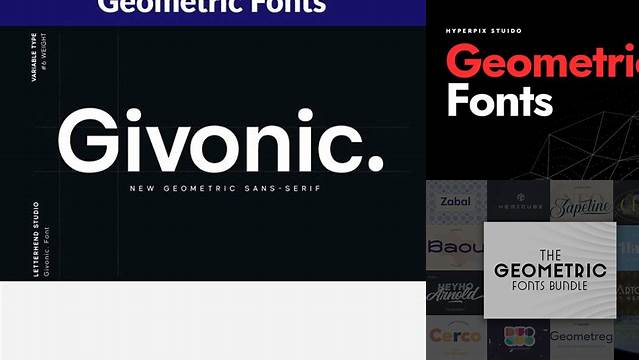
Geometric Fonts: Examples & Best Uses
Hey guys! Let's dive into the fascinating world of geometric fonts. These fonts, characterized by their clean lines and simple shapes, have become a staple in modern design. From logos to websites, geometric fonts offer a sleek and contemporary feel. This article will explore various examples and best uses of geometric fonts, helping you understand how to effectively incorporate them into your projects.
What are Geometric Fonts?
Before we jump into examples, let's define what geometric fonts actually are. Geometric fonts are typefaces that are built upon basic geometric shapes like circles, squares, and triangles. This construction gives them a very structured and clean appearance. Think of iconic fonts like Futura, Avant Garde, and Avenir – these are all prime examples of geometric sans-serif fonts. The simplicity and clarity of geometric fonts make them incredibly versatile, suitable for a wide range of applications. Their minimalist design also ensures readability, which is crucial for both print and digital media. Often, geometric fonts evoke a sense of modernity and sophistication, making them a popular choice for brands aiming to project a contemporary image. So, in essence, geometric fonts are the epitome of modern typography, blending form and function seamlessly to create visually appealing and highly legible text.
The History of Geometric Fonts
The history of geometric fonts is pretty interesting! The roots can be traced back to the Bauhaus movement in the early 20th century. This influential art and design movement emphasized simplicity, functionality, and the use of geometric forms. Designers like Herbert Bayer and Paul Renner were pioneers in this field, creating typefaces that reflected the Bauhaus philosophy. Renner's Futura, released in 1927, is perhaps the most iconic example, and it set the standard for many geometric fonts that followed. The clean, crisp lines and mathematically precise shapes of Futura represented a radical departure from the more ornate typefaces of the time. The Bauhaus ideals of form following function and the reduction of design to its essential elements heavily influenced the development of geometric fonts. These fonts were seen as a visual expression of the modern age, reflecting the industrialization and technological advancements of the era. Over the decades, geometric fonts have remained popular, continually being adapted and reinterpreted by designers to suit contemporary needs. Their timeless appeal lies in their ability to convey a sense of order, clarity, and modernity, making them a staple in graphic design history.
Why Choose Geometric Fonts?
There are tons of reasons to choose geometric fonts for your projects. First off, they offer a clean and modern aesthetic that can instantly elevate your design. The simplicity of geometric shapes creates a sense of sophistication and clarity, which is perfect for brands looking to project a contemporary image. Readability is another major advantage. Geometric fonts, with their clear and consistent letterforms, are easy to read in both large and small sizes, making them suitable for a wide range of applications, from headlines to body text. Versatility is also a key benefit. Geometric fonts work well in various contexts, whether you're designing a logo, a website, a brochure, or even an app. They pair well with other font styles, allowing you to create visually interesting and balanced designs. Furthermore, the minimalist nature of geometric fonts means they don't distract from the content. They serve their purpose without overwhelming the overall design, ensuring that the message remains the focal point. In short, geometric fonts are a fantastic choice for anyone seeking a typeface that is both visually appealing and highly functional.
Best Uses for Geometric Fonts
So, where do geometric fonts really shine? Well, they're super versatile, but here are some specific areas where they excel. For logos, geometric fonts provide a clean and professional look, perfect for brands that want to convey a sense of modernity and trustworthiness. Think about brands in tech, finance, or design – you'll often see geometric typefaces in their logos. Websites also benefit greatly from geometric fonts. Their excellent readability makes them ideal for both headings and body text, ensuring a smooth and pleasant user experience. Plus, the modern aesthetic aligns perfectly with contemporary web design trends. In print materials, such as brochures and posters, geometric fonts stand out due to their clarity and visual appeal. They can create a strong visual hierarchy and make your content more engaging. Digital interfaces, like apps and software, also benefit from the clean lines of geometric fonts, ensuring that text is legible and user-friendly. Even in editorial design, geometric fonts can be used effectively to create a sense of order and sophistication. Overall, the best uses for geometric fonts are in any context where clarity, modernity, and a touch of elegance are desired. They're a reliable choice for a wide range of design projects, making them a staple in any designer's toolkit.
Geometric Fonts for Logos
When it comes to logos, geometric fonts are a go-to choice for many designers. Their clean and modern appearance helps to create a brand identity that feels contemporary and professional. The simplicity of geometric fonts ensures that the logo remains legible and impactful, even at small sizes. This is crucial for logos that need to work across various platforms, from business cards to websites. Brands in industries such as technology, finance, and design often favor geometric typefaces because they convey a sense of innovation and trustworthiness. A well-chosen geometric font can communicate a brand's values and personality effectively. For example, a logo using a bold geometric font might project confidence and stability, while a lighter, more refined geometric font might suggest elegance and sophistication. It's important to consider the overall brand message when selecting a geometric font for a logo. The font should complement the brand's identity and resonate with its target audience. In addition to their aesthetic appeal, geometric fonts are also highly versatile, pairing well with various design elements and color palettes. This makes them a reliable choice for creating logos that are both visually appealing and functionally effective.
Geometric Fonts for Websites
Websites are another area where geometric fonts truly shine. Their excellent readability and modern aesthetic make them a fantastic choice for creating a user-friendly and visually appealing online experience. Whether you're designing a blog, an e-commerce site, or a corporate website, geometric fonts can help to enhance the overall look and feel. One of the key benefits of using geometric fonts on websites is their clarity. The clean lines and simple shapes make text easy to read, which is crucial for keeping visitors engaged. This is particularly important for body text, where readability is paramount. However, geometric fonts also work well for headings and subheadings, creating a strong visual hierarchy and guiding users through the content. In addition to their readability, geometric fonts also contribute to a contemporary design aesthetic. They align perfectly with modern web design trends, helping to create a website that feels fresh and up-to-date. The versatility of geometric fonts also means they can be used in various contexts, from minimalist designs to more complex layouts. They pair well with other font styles, allowing you to create visually interesting and balanced typography. Overall, geometric fonts are a solid choice for websites, offering a combination of readability, style, and versatility that can significantly enhance the user experience.
Geometric Fonts for Print Materials
Geometric fonts are not just for digital use; they also excel in print materials. Their clean and crisp appearance makes them an excellent choice for brochures, posters, business cards, and other printed documents. The clarity of geometric fonts ensures that your message is communicated effectively, even in smaller print sizes. This is particularly important for materials where readability is crucial, such as product brochures or informational flyers. The modern aesthetic of geometric fonts can also add a touch of sophistication to your print designs. Whether you're creating a marketing brochure for a high-end product or designing a professional business card, geometric fonts can help to convey a sense of quality and attention to detail. Their versatility also allows them to be used in various print applications, from minimalist designs to more complex layouts. They work well for headings, body text, and even captions, providing a consistent and cohesive typographic style throughout your printed materials. Furthermore, geometric fonts can be easily paired with other font styles to create visually interesting and balanced designs. This makes them a reliable choice for any print project where a clean, modern, and professional look is desired.
Geometric Fonts for Digital Interfaces
When it comes to digital interfaces, such as apps and software, geometric fonts are a practical and stylish choice. Their clean lines and excellent readability make them ideal for ensuring a user-friendly experience. In the world of UI/UX design, clarity is key, and geometric fonts deliver just that. The consistent letterforms and simple shapes make text easy to read, which is crucial for guiding users through an interface. Whether it's labels, buttons, or body text, geometric fonts ensure that information is presented in a clear and accessible manner. The modern aesthetic of geometric fonts also aligns well with contemporary interface design trends. They contribute to a sleek and polished look, enhancing the overall visual appeal of the app or software. This is particularly important for creating a positive first impression and keeping users engaged. Additionally, the versatility of geometric fonts means they can be used in various contexts within the interface, from navigation menus to error messages. They work well in different sizes and weights, providing flexibility for designing a cohesive and visually consistent user experience. Overall, geometric fonts are a solid choice for digital interfaces, offering a combination of readability, style, and versatility that can significantly enhance usability.
Pairing Geometric Fonts with Other Styles
One of the best things about geometric fonts is their ability to pair well with other font styles. This versatility allows designers to create visually interesting and balanced typography in their projects. The clean and simple nature of geometric fonts means they can complement a wide range of typefaces, from serifs to scripts. When pairing geometric fonts with serif fonts, you can create a classic and sophisticated look. Using a geometric sans-serif for headings and a serif font for body text can establish a clear visual hierarchy while maintaining readability. The contrast between the clean lines of the geometric font and the more ornate details of the serif font can add depth and visual interest to the design. For a more modern and minimalist aesthetic, consider pairing geometric fonts with other sans-serif typefaces. This can create a cohesive and clean look, perfect for contemporary designs. Experiment with different weights and styles to achieve the desired balance and visual impact. Geometric fonts can also be paired with script fonts for a more playful and dynamic design. However, it's important to use this combination sparingly, as too much script can become overwhelming. A script font can be used for headings or accents, while the geometric font provides a clean and legible foundation for the rest of the text. Ultimately, the key to pairing geometric fonts with other styles is to experiment and find combinations that work well together visually and conceptually.
Examples of Popular Geometric Fonts
Let's talk about some popular geometric fonts that you might have seen around! One of the most iconic is Futura, designed by Paul Renner in 1927. Futura is a classic example of a geometric sans-serif, known for its clean lines and perfect circles. It's been used in countless logos, posters, and publications, and it's still super popular today. Another well-known geometric font is Avant Garde, designed by Herb Lubalin and Tom Carnase in 1970. Avant Garde has a distinctive, modernist look, with its sharp angles and simplified letterforms. It's often used for logos and headlines, and it's great for creating a bold and stylish statement. Avenir, designed by Adrian Frutiger in 1988, is another excellent example. Avenir is a more humanist geometric font, with a slightly warmer and more approachable feel than Futura or Avant Garde. It's highly readable and versatile, making it a great choice for both body text and headings. Geometric fonts like Gotham, designed by Tobias Frere-Jones in 2000, have also gained significant popularity. Gotham has a strong, industrial feel, and it was famously used in the Obama presidential campaign. These are just a few examples, but they demonstrate the wide range of styles and applications within the geometric font category. Each font has its unique personality and strengths, so it's worth exploring different options to find the perfect fit for your project.
Futura: A Classic Geometric Font
Futura is the classic geometric font, guys! Designed by Paul Renner in 1927, it's a true icon of modern typography. What makes Futura so special? Well, it's all about the clean lines and pure geometric shapes. Renner based the design on basic forms like circles, squares, and triangles, creating a typeface that feels incredibly structured and precise. This simplicity is what gives Futura its timeless appeal. It's a font that looks just as good today as it did almost a century ago. The impact of Futura on the world of design cannot be overstated. It set a new standard for sans-serif typefaces, and it influenced countless designers and typographers. Its clean and modern aesthetic made it a perfect fit for the modernist movement, and it quickly became a favorite for everything from corporate logos to editorial design. You've probably seen Futura everywhere, even if you didn't realize it. It's been used by major brands like Volkswagen, IKEA, and Domino's Pizza, and it's a popular choice for movie posters and book covers. The versatility of Futura is another reason for its enduring popularity. It works well in a wide range of contexts, from headlines to body text, and it can convey a sense of sophistication, modernity, and efficiency. If you're looking for a reliable and timeless geometric font, Futura is definitely one to consider. It's a true classic that will never go out of style.
Avant Garde: A Modern Geometric Font
Avant Garde is another standout geometric font, known for its bold and modernist style. Designed by Herb Lubalin and Tom Carnase in 1970, Avant Garde has a distinct personality that sets it apart from other geometric typefaces. Its sharp angles, simplified letterforms, and unique ligatures give it a very contemporary and stylish feel. The design of Avant Garde was heavily influenced by the avant-garde art movement, which emphasized experimentation and innovation. This influence is evident in the font's unconventional shapes and its willingness to break from traditional typographic conventions. Avant Garde is often used for logos and headlines, where its strong visual presence can make a bold statement. It's particularly well-suited for brands that want to project a cutting-edge or artistic image. The font's unique ligatures, which combine two or more letters into a single glyph, add to its distinctive character. These ligatures create a sense of fluidity and visual interest, making Avant Garde a truly memorable typeface. However, it's important to use Avant Garde judiciously, as its strong personality can sometimes be overwhelming. It works best in short bursts, such as headlines or logos, where its impact can be maximized. When used effectively, Avant Garde can bring a touch of sophistication and modernity to any design project. It's a geometric font that truly embodies the spirit of its time.
Avenir: A Humanist Geometric Font
Avenir is a geometric font that takes a slightly different approach. Designed by Adrian Frutiger in 1988, Avenir is often described as a humanist geometric sans-serif. This means that while it retains the clean lines and geometric shapes of a classic geometric font, it also incorporates subtle humanistic elements that give it a warmer and more approachable feel. Frutiger's goal with Avenir was to create a typeface that was both modern and timeless. He wanted to capture the essence of geometric simplicity while also making the font highly readable and versatile. The result is a typeface that is both elegant and functional, making it a popular choice for a wide range of applications. One of the key characteristics of Avenir is its balanced proportions and subtle curves. These details give the font a more organic and human feel compared to the strict geometry of typefaces like Futura. Avenir is also highly legible, making it a great choice for body text. Its clean and clear letterforms ensure that text remains readable even at small sizes. The versatility of Avenir makes it a popular choice for both print and digital design. It works well for logos, headlines, and body text, and it can convey a sense of sophistication and modernity. If you're looking for a geometric font that is both stylish and approachable, Avenir is definitely worth considering. It's a typeface that balances form and function beautifully.
Gotham: A Strong Geometric Font
Gotham is a geometric font known for its strong and industrial feel. Designed by Tobias Frere-Jones in 2000, Gotham has a distinctly modern and American character. Its clean, sans-serif design is inspired by the architectural signage of New York City, giving it a sense of urban sophistication and strength. One of the most notable uses of Gotham was in the 2008 Obama presidential campaign. The font's bold and confident appearance helped to convey a message of hope and change, and it became an integral part of the campaign's visual identity. Gotham's success in the Obama campaign helped to solidify its reputation as a powerful and versatile typeface. It's often used for logos, headlines, and signage, where its strong presence can make a significant impact. The font's clean lines and simple shapes ensure that it remains legible even at small sizes, making it a practical choice for a wide range of applications. Geometric fonts like Gotham are a versatile choice, and their strong geometric construction makes them particularly well-suited for designs that need to convey a sense of authority and reliability. Whether you're designing a corporate website or a marketing campaign, Gotham can help you create a visually compelling and effective message. Its modern and confident style makes it a favorite among designers who are looking for a typeface that can command attention.
Geometric Font Styles: Bold, Light, and More
Geometric fonts come in various styles, from bold and impactful to light and elegant. Understanding the different styles available can help you choose the perfect typeface for your project. Bold geometric fonts are ideal for headlines and logos, where you want to make a strong statement. Their thick strokes and solid forms command attention and create a sense of authority. Using geometric fonts in a bold style is a good way to ensure that your message is clearly seen and understood. Light geometric fonts, on the other hand, offer a more subtle and refined look. They are often used for body text and captions, where readability is paramount. The thin strokes and open forms of light geometric fonts create a sense of airiness and elegance. In addition to bold and light styles, many geometric fonts also come in regular, medium, and semi-bold weights. These intermediate styles provide flexibility for creating a visual hierarchy in your designs. For example, you might use a semi-bold weight for subheadings and a regular weight for body text. Geometric fonts also often include italic styles, which can add a touch of dynamism and visual interest to your designs. Italic geometric fonts are particularly effective for emphasizing key words or phrases. Exploring the different styles and weights available within a geometric font family can help you create a cohesive and visually appealing typographic system. By carefully selecting the appropriate styles for different elements of your design, you can ensure that your message is communicated effectively and with style.
Geometric Fonts for Headlines
When it comes to headlines, geometric fonts are a fantastic choice. Their clean lines and modern aesthetic make them perfect for grabbing attention and creating a strong visual impact. Geometric fonts for headlines help to ensure that your message is not only seen but also felt. A well-chosen geometric typeface can instantly elevate your design, adding a touch of sophistication and clarity. One of the key benefits of using geometric fonts for headlines is their excellent readability. The simple and consistent letterforms make headlines easy to read, even at large sizes. This is crucial for ensuring that your message is communicated effectively. Bold geometric fonts are particularly well-suited for headlines, as their thick strokes and solid forms command attention. Typefaces like Futura and Gotham are popular choices for headlines, thanks to their strong and confident appearance. However, lighter geometric fonts can also be used effectively for headlines, especially in designs where a more subtle and refined look is desired. The key is to choose a font style that complements the overall design aesthetic. Geometric fonts also pair well with other font styles, giving you the flexibility to create visually interesting and balanced typography. For example, you might use a geometric font for your headlines and a serif font for your body text. This combination can create a classic and sophisticated look, while also ensuring readability. Overall, geometric fonts are a reliable and stylish choice for headlines, offering a combination of clarity, modernity, and visual impact.
Geometric Fonts for Body Text
While geometric fonts are often associated with headlines and logos, they can also be an excellent choice for body text. The key to using geometric fonts effectively for body text is to choose a typeface that is highly readable and comfortable to read over extended periods. Geometric fonts for body text need to be clear and consistent to ensure a good reading experience. One of the main advantages of using geometric fonts for body text is their clean and modern appearance. The simple and consistent letterforms create a sense of clarity and sophistication, which can enhance the overall design of your project. However, not all geometric fonts are equally well-suited for body text. Some geometric typefaces, particularly those with very sharp angles or unconventional shapes, can become tiring to read in large blocks of text. For body text, it's generally best to choose a geometric font with a more humanist design, such as Avenir or Open Sans. These typefaces incorporate subtle curves and balanced proportions that make them more comfortable to read. The weight and spacing of the font are also important factors to consider. A lighter weight and generous letter spacing can improve readability, especially in smaller font sizes. Geometric fonts can also be effectively paired with other font styles for body text. For example, you might use a geometric font for headings and a serif font for the body text. This combination can create a clear visual hierarchy while maintaining a cohesive typographic style. Ultimately, the best way to determine whether a geometric font is suitable for body text is to test it out. Try reading a sample of text in the font and see how it feels. If the font is easy to read and doesn't cause eye strain, it's likely a good choice.
Geometric Fonts for Branding
Geometric fonts play a significant role in branding, offering a clean, modern, and professional look that can elevate a brand's identity. Their simplicity and clarity make them versatile for various applications, from logos to marketing materials. Using geometric fonts for branding provides a sense of consistency and sophistication. When choosing a geometric font for branding, it's important to consider the overall message and personality of the brand. A bold geometric font can convey strength and confidence, while a lighter font might suggest elegance and refinement. The typeface should align with the brand's values and resonate with its target audience. Geometric fonts are particularly well-suited for brands in industries such as technology, finance, and design. These sectors often seek to project a modern and innovative image, which geometric typefaces can effectively communicate. The clean lines and simple shapes of geometric fonts create a sense of order and efficiency, which can be particularly appealing to these audiences. However, geometric fonts can also be used successfully in other industries, as long as they are chosen carefully and used in a way that complements the brand's overall aesthetic. In addition to logos, geometric fonts can be used throughout a brand's visual identity, including on websites, business cards, and marketing collateral. This consistency helps to create a cohesive and recognizable brand image. The versatility of geometric fonts also means they can be easily adapted to different media and formats. Overall, geometric fonts are a powerful tool for branding, offering a timeless and professional look that can help a brand stand out.
Geometric Fonts and Minimalism
Geometric fonts are a natural fit for minimalist design. Minimalism emphasizes simplicity, clean lines, and a focus on essential elements, and geometric typefaces perfectly align with these principles. The clean and uncluttered aesthetic of geometric fonts makes them ideal for creating designs that are both visually appealing and highly functional. Geometric fonts and minimalism go hand in hand, providing a sleek and modern look. In minimalist designs, every element serves a purpose, and there is no room for unnecessary ornamentation. Geometric fonts, with their simple shapes and clear letterforms, embody this philosophy. They convey a sense of order and efficiency, which is crucial for minimalist aesthetics. Using geometric fonts in minimalist designs helps to create a sense of balance and harmony. The clean lines of the typeface complement the overall simplicity of the design, creating a cohesive and visually pleasing result. Minimalist designs often rely on typography to convey their message, and geometric fonts are particularly well-suited for this purpose. Their excellent readability ensures that the message is communicated effectively, even in the absence of other visual elements. The versatility of geometric fonts also means they can be used in various minimalist applications, from websites to posters. They work well for headlines, body text, and captions, providing a consistent and clean typographic style. Overall, geometric fonts are an essential tool for minimalist designers, offering a perfect combination of simplicity, clarity, and style.
Geometric Fonts in Modern Design Trends
Geometric fonts are a staple in modern design trends, consistently appearing in websites, logos, and print materials. Their clean, simple shapes and modern aesthetic make them a versatile choice for designers looking to create a contemporary feel. Geometric fonts in modern design trends highlight their lasting appeal and adaptability. One of the key reasons for their popularity is their excellent readability. Geometric fonts are easy to read in both large and small sizes, making them suitable for a wide range of applications. This is particularly important in web design, where readability is crucial for user experience. The minimalist aesthetic of geometric fonts also aligns perfectly with current design trends. Minimalist designs emphasize simplicity and clean lines, and geometric typefaces complement this style beautifully. They create a sense of order and clarity, which is essential for minimalist aesthetics. However, geometric fonts are not limited to minimalist designs. They can also be used effectively in more complex layouts, adding a touch of sophistication and modernity. The versatility of geometric fonts means they can be paired with various other typefaces, giving designers the flexibility to create unique and visually interesting typography. In recent years, there has been a resurgence of interest in geometric fonts, with designers rediscovering the timeless appeal of these classic typefaces. They are a reliable choice for creating designs that are both stylish and functional, making them a perennial favorite in the design world.
The Future of Geometric Fonts
So, what does the future hold for geometric fonts? Well, guys, it looks pretty bright! These fonts have been around for almost a century, and they're still super popular today. That's a testament to their timeless appeal and versatility. As design trends continue to evolve, geometric fonts are likely to remain a staple in the designer's toolkit. Geometric fonts in the future will likely see more variations and innovative uses. One trend we might see is the further exploration of geometric sans-serifs with variable font technology. This allows for greater customization and flexibility, enabling designers to create unique and dynamic typography. We might also see more geometric fonts that incorporate subtle humanistic elements, blending the clean lines of geometric shapes with a more organic and approachable feel. This could result in typefaces that are both stylish and highly readable, making them suitable for a wide range of applications. Another potential development is the use of geometric fonts in virtual reality and augmented reality interfaces. The clarity and simplicity of geometric typefaces make them well-suited for these immersive environments, where readability is crucial. Overall, the future of geometric fonts looks promising. Their timeless appeal and versatility, combined with new technologies and design trends, will ensure that they remain a vital part of the design landscape for years to come.
Choosing the Right Geometric Font
Choosing the right geometric font can feel a bit overwhelming with so many options available, but don't worry, we've got you covered! It really comes down to understanding your project's needs and the message you want to convey. The goal is to select the geometric fonts that best represent the intended style and readability. First, think about the overall tone and style of your design. Are you aiming for a modern and minimalist look? Or something more classic and sophisticated? The answer to this question will help you narrow down your choices. For a clean and contemporary feel, you might consider typefaces like Futura or Gotham. These fonts have a strong geometric structure and convey a sense of efficiency and modernity. If you're looking for something a bit more approachable and humanist, Avenir or Open Sans might be a better fit. These fonts incorporate subtle curves and balanced proportions that make them highly readable and versatile. Consider the intended use of the font. Is it for headlines, body text, logos, or something else? Different applications require different levels of readability and visual impact. Bold geometric fonts are great for headlines and logos, where you want to grab attention. Lighter weights and more humanist styles are better suited for body text, where readability is paramount. Don't be afraid to experiment with different font pairings. Geometric fonts often work well with other font styles, such as serifs or scripts. Combining different typefaces can create visual interest and a balanced typographic system. Ultimately, the best way to choose the right geometric font is to try out different options and see what works best for your project. Consider the overall design aesthetic and the message you want to convey, and you'll be sure to find a typeface that fits your needs.
Tips for Using Geometric Fonts Effectively
Alright, so you've chosen your perfect geometric font – awesome! But how do you actually use it effectively in your designs? Here are a few tips to help you make the most of geometric fonts. These tips for using geometric fonts will help you create stunning designs. First off, think about hierarchy. Use different weights and sizes to create a clear visual hierarchy in your design. Bold geometric fonts are great for headlines, while lighter weights work well for body text. This helps guide the reader's eye and ensures that your message is communicated effectively. Spacing is also key. Pay attention to letter spacing and line height. Generous spacing can improve readability, especially in body text. Too much spacing, however, can make the text look disjointed. Find a balance that works well for your chosen font and layout. Think about contrast. Geometric fonts often pair well with other typefaces, such as serifs or scripts. Experiment with different combinations to create visual interest and a balanced typographic system. However, be careful not to use too many different fonts, as this can make your design look cluttered. Consistency is also crucial. Use your chosen geometric font consistently throughout your design. This helps to create a cohesive and professional look. Stick to a limited number of font styles and weights to maintain visual harmony. Finally, don't be afraid to experiment! Typography is a creative process, so try out different options and see what works best for your project. The most important thing is to find a geometric font that conveys the message you're looking for and complements the overall design aesthetic. By following these tips, you can create stunning designs that effectively utilize geometric fonts.
Geometric Font Resources and Downloads
Looking for some great geometric fonts to download? There are tons of resources out there, both free and premium, that offer a wide range of options. Finding geometric fonts resources and downloads can be easy with a little guidance. Let's explore some of the best places to find your next favorite typeface. For free geometric fonts, websites like Google Fonts and Font Squirrel are excellent starting points. Google Fonts offers a vast library of open-source fonts, many of which are geometric sans-serifs. These fonts are free to use for both personal and commercial projects, making them a great option for budget-conscious designers. Font Squirrel is another fantastic resource for free fonts. They carefully curate their selection, ensuring that all fonts are high-quality and legally available for commercial use. If you're willing to invest in premium geometric fonts, sites like MyFonts, Adobe Fonts, and Creative Market offer a wide range of options. Premium fonts often come with more extensive character sets, stylistic alternates, and support for multiple languages. This can be particularly important for professional design projects. Adobe Fonts is a great option for Adobe Creative Cloud subscribers, as it provides access to a vast library of fonts that can be easily integrated into your design workflow. Creative Market is another excellent resource, offering a wide range of fonts from independent designers. In addition to font websites, there are also many articles and blog posts that feature curated lists of geometric fonts. These resources can help you discover new typefaces and find inspiration for your projects. Remember to always check the licensing terms before using any font, whether it's free or premium, to ensure that it's suitable for your intended use. With so many resources available, you're sure to find the perfect geometric font for your next design project.
Geometric Sans-Serif Fonts: A Deep Dive
Let's take a closer look at geometric sans-serif fonts, shall we? These typefaces are the quintessential example of geometric design in typography. Characterized by their clean lines, simple shapes, and lack of serifs, they offer a modern and minimalist aesthetic. Exploring geometric sans-serif fonts provides insights into their design principles and applications. The history of geometric sans-serif fonts is closely tied to the Bauhaus movement, which emphasized simplicity, functionality, and the use of geometric forms. Pioneers like Paul Renner, designer of Futura, and Herbert Bayer, who created Universal, were instrumental in developing this style of typography. These designers sought to create typefaces that reflected the modern age, with clean and uncluttered designs that were easy to read. Geometric sans-serif fonts are constructed using basic geometric shapes, such as circles, squares, and triangles. This gives them a very structured and precise appearance, which is part of their appeal. The absence of serifs, the small decorative strokes at the ends of letterforms, further contributes to their clean and minimalist look. Geometric sans-serif fonts are incredibly versatile and can be used in a wide range of applications. They are particularly well-suited for logos, headlines, and branding materials, where their modern aesthetic can make a strong impression. However, they can also be used effectively for body text, especially in digital environments, where their clarity and readability are advantageous. When choosing a geometric sans-serif font, it's important to consider the overall tone and style of your design. Some geometric typefaces, like Futura and Gotham, have a very strong and assertive feel, while others, like Avenir and Open Sans, are more humanist and approachable. By understanding the nuances of different geometric sans-serif fonts, you can select the perfect typeface for your project.
Creating a Geometric Font Combination
Creating a geometric font combination can be a fun and rewarding way to elevate your designs. When you're looking into geometric font combination ideas, consider how different typefaces can work together to create a visually appealing and harmonious look. The key is to balance contrast and harmony, ensuring that the fonts complement each other without clashing. One popular approach is to pair a bold geometric sans-serif font with a lighter weight of the same typeface. This creates a clear visual hierarchy, with the bold font used for headlines and the lighter weight used for body text. This combination provides consistency and readability, while still offering enough visual interest. Another effective strategy is to combine a geometric sans-serif font with a serif typeface. This can create a classic and sophisticated look, with the geometric font used for headings and the serif font used for body text. The contrast between the clean lines of the geometric font and the more ornate details of the serif font can add depth and visual interest to your design. When choosing a serif font to pair with a geometric sans-serif, consider the overall tone and style of your design. A traditional serif font, like Times New Roman or Georgia, can create a more formal and classic look, while a modern serif font, like Playfair Display or Lora, can add a touch of elegance and sophistication. You can also experiment with pairing a geometric sans-serif font with a script typeface. This can create a more playful and dynamic design, but it's important to use this combination sparingly, as too much script can become overwhelming. A script font can be used for headings or accents, while the geometric font provides a clean and legible foundation for the rest of the text. Ultimately, the best way to create a geometric font combination is to experiment and see what works best for your project. Consider the overall design aesthetic and the message you want to convey, and you'll be sure to find a combination that fits your needs.
The Psychology of Geometric Fonts
Geometric fonts have a unique psychological impact on viewers, which can influence how your message is perceived. Understanding the psychology of geometric fonts helps in making informed design choices. Their clean lines, simple shapes, and modern aesthetic evoke feelings of order, efficiency, and sophistication. This makes them a popular choice for brands that want to project a sense of professionalism and trustworthiness. The simplicity of geometric fonts can also convey a sense of clarity and straightforwardness. This is particularly effective for communicating information in a clear and concise manner, such as on websites or in informational brochures. When used in logos, geometric fonts can create a strong and memorable brand identity. Their clean and modern appearance can help a brand stand out from the competition, conveying a sense of innovation and forward-thinking. However, the psychological impact of geometric fonts can also vary depending on the specific typeface and how it is used. A bold geometric font, for example, can convey strength and authority, while a lighter weight may project elegance and refinement. The colors and other design elements used in conjunction with the font can also influence its psychological impact. When choosing a geometric font for your project, it's important to consider the message you want to convey and the emotions you want to evoke. By understanding the psychology of geometric fonts, you can make informed design choices that effectively communicate your message and resonate with your target audience.
Geometric Fonts and Readability: A Detailed Look
Readability is a crucial factor in typography, and geometric fonts offer a unique set of considerations. A detailed look at geometric fonts and readability will enhance design effectiveness. Their clean lines and simple shapes can enhance readability in certain contexts, but it's important to understand the nuances to ensure optimal results. One of the main advantages of geometric fonts for readability is their consistent letterforms. The uniform strokes and shapes make each letter distinct and easy to recognize, which can improve reading speed and comprehension. This is particularly beneficial for headlines and short blocks of text, where clarity is paramount. However, the very uniformity that makes geometric fonts readable can also be a drawback in body text. The lack of variation in letterforms can sometimes make it difficult for the eye to distinguish between words, especially in longer passages. This can lead to eye strain and fatigue, reducing overall readability. To maximize readability with geometric fonts, it's important to choose a typeface with a more humanist design, such as Avenir or Open Sans. These fonts incorporate subtle curves and balanced proportions that make them more comfortable to read over extended periods. Spacing also plays a crucial role in readability. Generous letter spacing and line height can improve readability, especially in smaller font sizes. However, too much spacing can make the text look disjointed. It's important to find a balance that works well for your chosen font and layout. Another factor to consider is the contrast between the text and the background. High contrast, such as black text on a white background, generally improves readability. However, overly stark contrast can be tiring to the eyes. Ultimately, the best way to assess the readability of a geometric font is to test it out. Try reading a sample of text in the font and see how it feels. If the font is easy to read and doesn't cause eye strain, it's likely a good choice.
How Geometric Fonts Impact User Experience
Geometric fonts can significantly impact user experience (UX), especially in digital interfaces. Considering how geometric fonts impact user experience is crucial for digital design. Their clean lines and modern aesthetic can contribute to a positive user experience, but it's important to use them thoughtfully to avoid potential pitfalls. One of the key benefits of using geometric fonts in UX design is their excellent readability. The simple and consistent letterforms make text easy to read, which is crucial for guiding users through an interface. This is particularly important for labels, buttons, and navigational elements, where clarity is paramount. A well-chosen geometric font can also enhance the visual appeal of an interface, creating a sense of modernity and sophistication. This can help to create a positive first impression and keep users engaged. However, it's important to choose a geometric font that is appropriate for the overall tone and style of the interface. A very bold or unconventional geometric font may be overwhelming or distracting in a user interface. Spacing and hierarchy are also important factors to consider in UX design. Generous letter spacing and line height can improve readability, especially in body text. Using different weights and sizes of geometric fonts can create a clear visual hierarchy, helping users to navigate the interface and find the information they need. Another potential issue with geometric fonts in UX design is their uniformity. The lack of variation in letterforms can sometimes make it difficult for users to distinguish between words, especially in long blocks of text. This can lead to eye strain and fatigue, reducing usability. To mitigate this issue, it's best to choose a geometric font with a more humanist design or to use geometric fonts sparingly in body text. Overall, geometric fonts can be a valuable tool for enhancing user experience, but it's important to use them thoughtfully and consider the specific needs of your users.
Geometric Fonts vs. Other Font Styles
Let's compare geometric fonts with other font styles to understand their unique characteristics and when to use them. Geometric fonts vs other font styles: Understanding the differences is key to good design choices. Geometric fonts, with their clean lines and simple shapes, stand in contrast to serif fonts, which have small decorative strokes at the ends of letterforms. Serif fonts, like Times New Roman or Garamond, often convey a sense of tradition and formality, while geometric fonts project a more modern and minimalist feel. The choice between geometric and serif fonts depends on the message you want to convey and the overall tone of your design. Geometric fonts also differ from humanist sans-serif fonts, such as Arial or Helvetica. Humanist sans-serifs have more organic shapes and proportions, making them slightly warmer and more approachable than geometric sans-serifs. This makes them a good choice for body text, where readability is paramount. In contrast to script fonts, which mimic handwriting, geometric fonts are highly structured and precise. Script fonts can add a touch of elegance and personality to a design, but they can also be difficult to read if used excessively. Geometric fonts offer clarity and simplicity, making them a reliable choice for a wide range of applications. Display fonts, which are designed for headlines and short blocks of text, often have unique and stylized letterforms. Geometric fonts can also be used as display fonts, but they offer a more understated and versatile option. The key to choosing between different font styles is to consider the overall design aesthetic and the message you want to convey. Geometric fonts offer a clean and modern look that can be used effectively in a variety of contexts.
Future Trends in Geometric Typography
The world of typography is constantly evolving, and geometric fonts are no exception. Let's explore some future trends in geometric typography to see what the future holds for these classic typefaces. One trend we're likely to see is the increased use of variable fonts. Variable fonts allow for greater customization and flexibility, enabling designers to adjust the weight, width, and other characteristics of a typeface on a granular level. This opens up new possibilities for creating dynamic and responsive typography, where the font adapts to different screen sizes and devices. We may also see more experimentation with geometric fonts in three-dimensional and motion graphics. The clean lines and simple shapes of geometric typefaces lend themselves well to these applications, creating a sense of depth and visual interest. Another potential trend is the blending of geometric and organic forms. Designers may start to incorporate more subtle curves and humanistic elements into geometric typefaces, creating fonts that are both modern and approachable. This could result in a new generation of geometric fonts that are highly readable and versatile. The rise of virtual and augmented reality may also influence the future of geometric typography. In these immersive environments, clarity and readability are crucial, and geometric fonts offer a reliable solution. We may see the development of specialized geometric typefaces designed specifically for VR and AR interfaces. Overall, the future of geometric typography looks bright. These classic typefaces are likely to remain a staple in the design world, while also adapting to new technologies and trends. The versatility and timeless appeal of geometric fonts will ensure that they continue to play a vital role in visual communication for years to come.
Conclusion: The Enduring Appeal of Geometric Fonts
In conclusion, the enduring appeal of geometric fonts lies in their simplicity, versatility, and timelessness. Geometric fonts in conclusion are a design staple for their modern and clean aesthetic. From their origins in the Bauhaus movement to their continued presence in modern design trends, geometric typefaces have proven their ability to adapt and remain relevant. Their clean lines and simple shapes convey a sense of order and efficiency, making them a reliable choice for a wide range of applications. Whether used in logos, headlines, body text, or digital interfaces, geometric fonts offer clarity and readability. Their modern aesthetic aligns well with contemporary design trends, while their versatility allows them to be paired with various other font styles. The psychological impact of geometric fonts, with their connotations of modernity and professionalism, makes them a powerful tool for branding and communication. As design continues to evolve, geometric fonts are likely to remain a staple in the designer's toolkit. Their timeless appeal and adaptability ensure that they will continue to play a vital role in visual communication for years to come. The key to using geometric fonts effectively is to understand their unique characteristics and to choose the right typeface for your specific needs. By considering factors such as readability, tone, and overall design aesthetic, you can harness the power of geometric fonts to create visually compelling and effective designs. So, whether you're designing a logo, a website, or a marketing campaign, consider the enduring appeal of geometric fonts and how they can enhance your message.